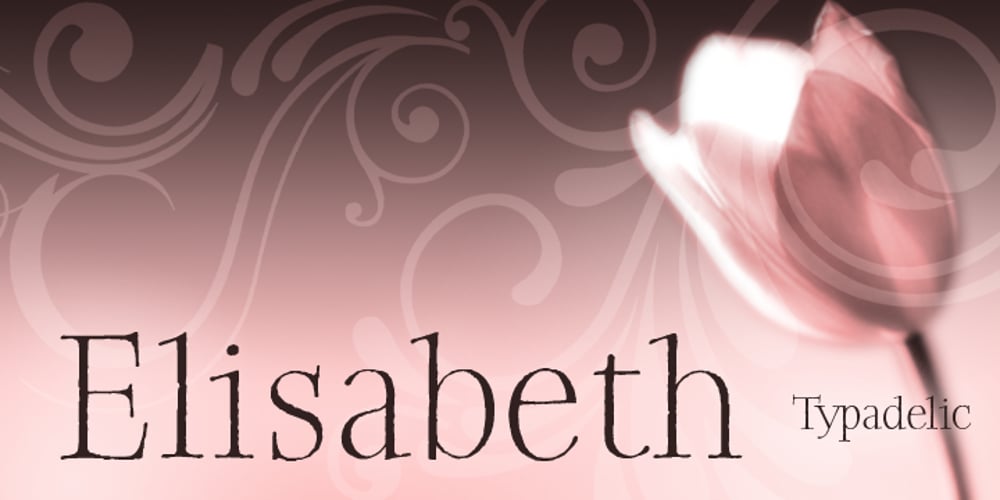
Elisabeth Font Family was designed by Ronna Penner and published by Typadelic. Elisabeth contains 1 styles and family package options. Inspired by handwritten roman lettering, Elisabeth maintains a classic antique appearance but its rough edges lend an air of character and charm. Good looks aside, Elisabeth is technologically up to today’s standards and works well in many applications. Use at larger sizes, headings, invitations, scrapbooking, menus and advertising.